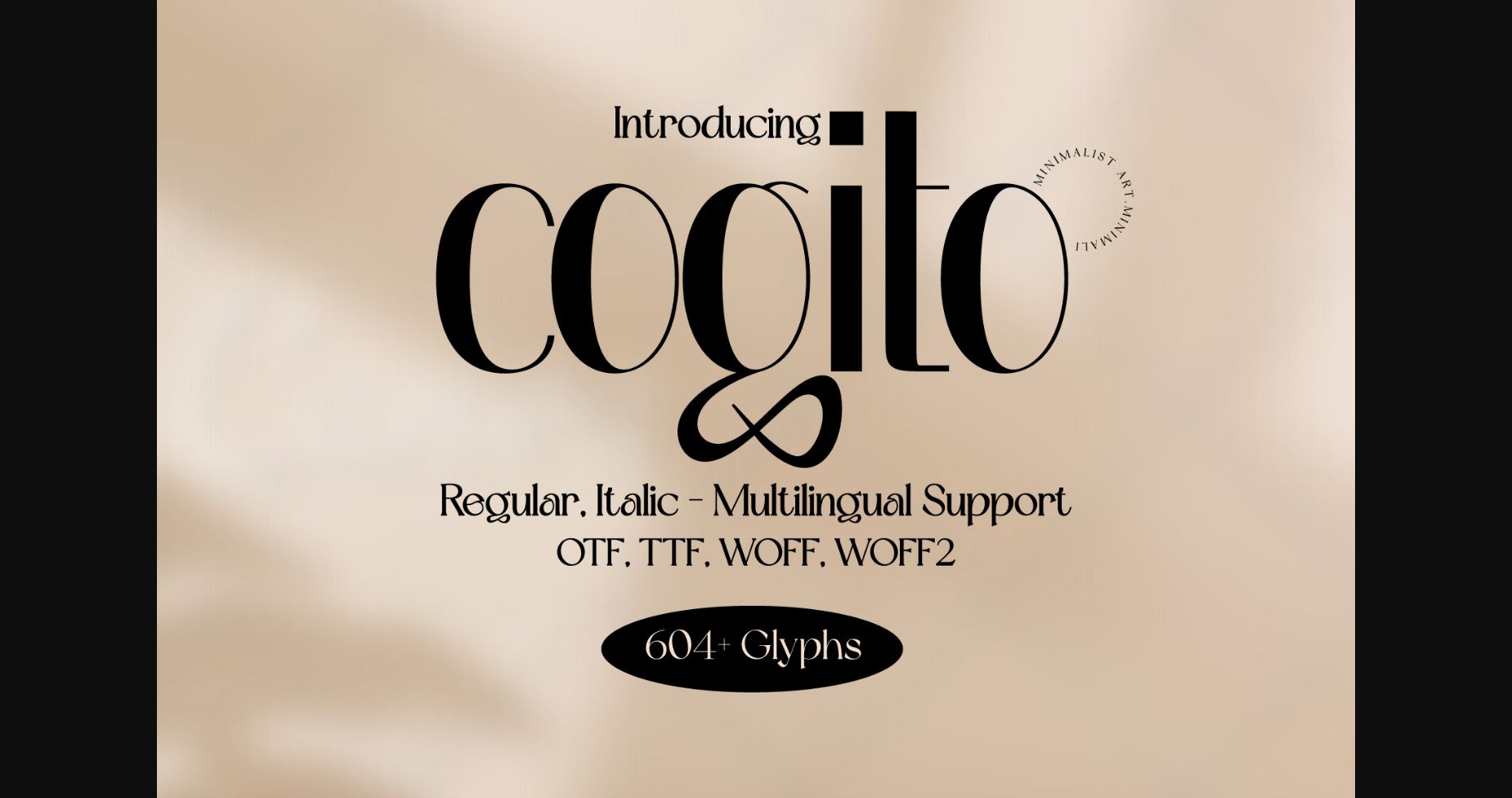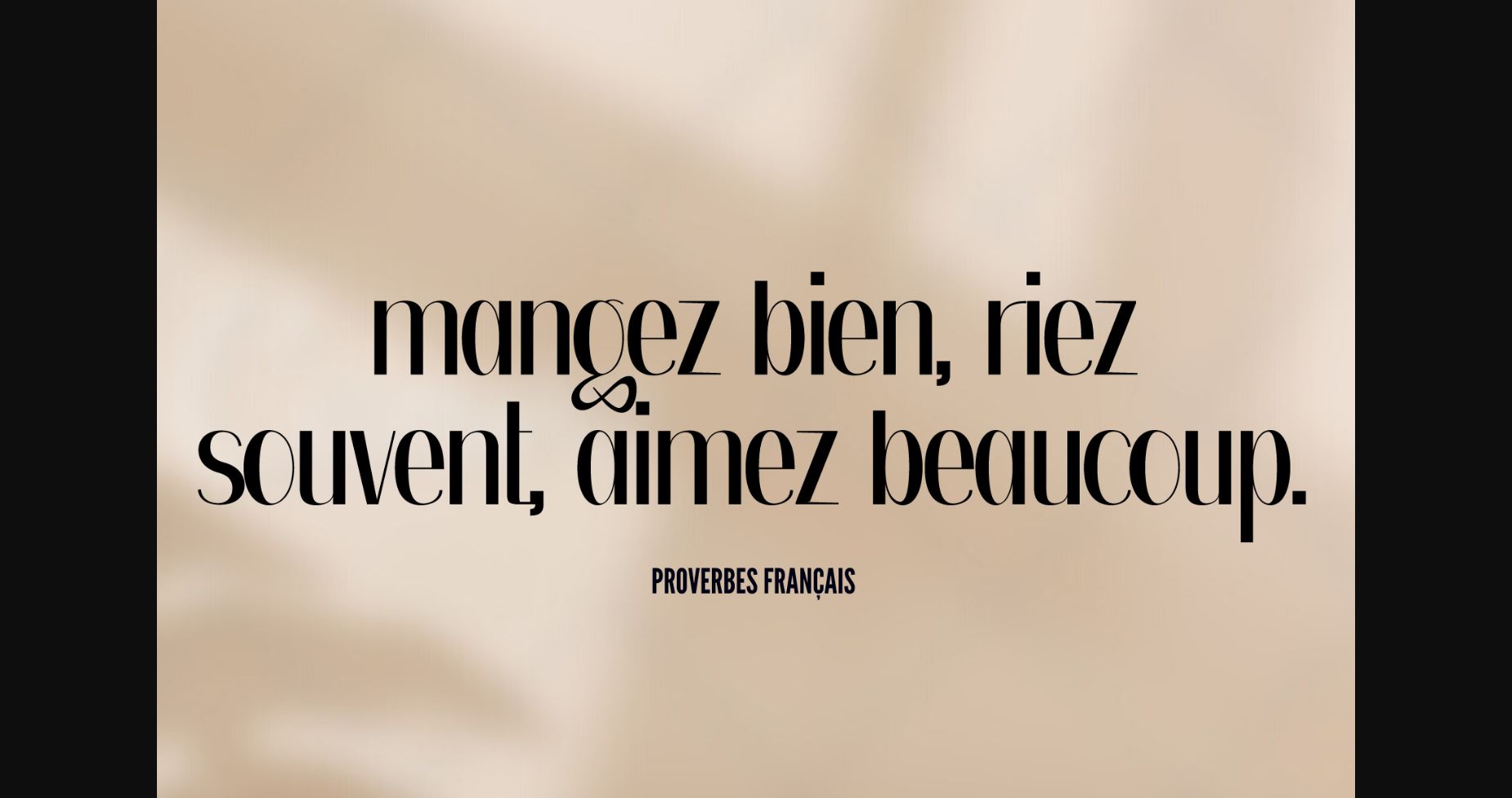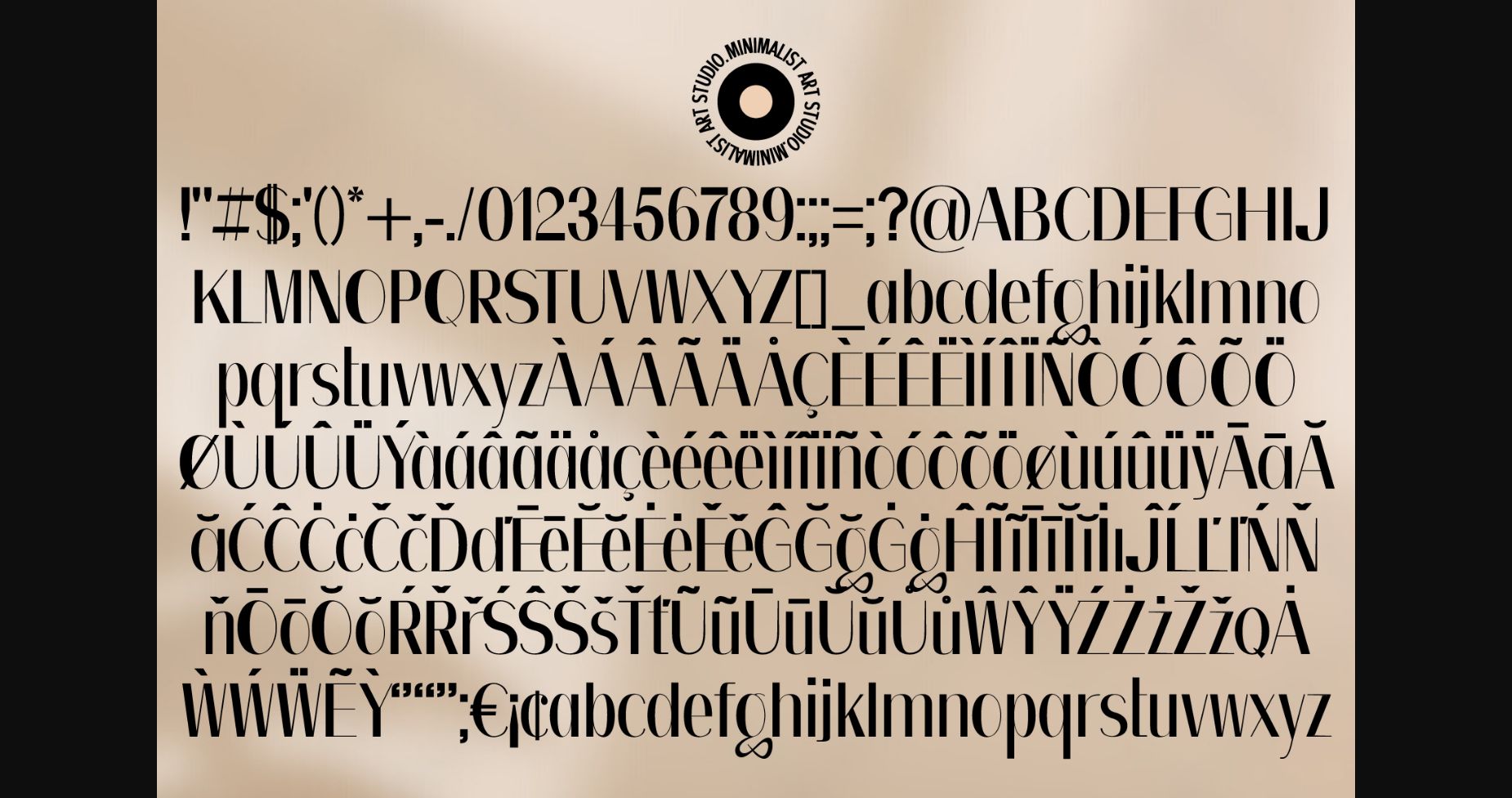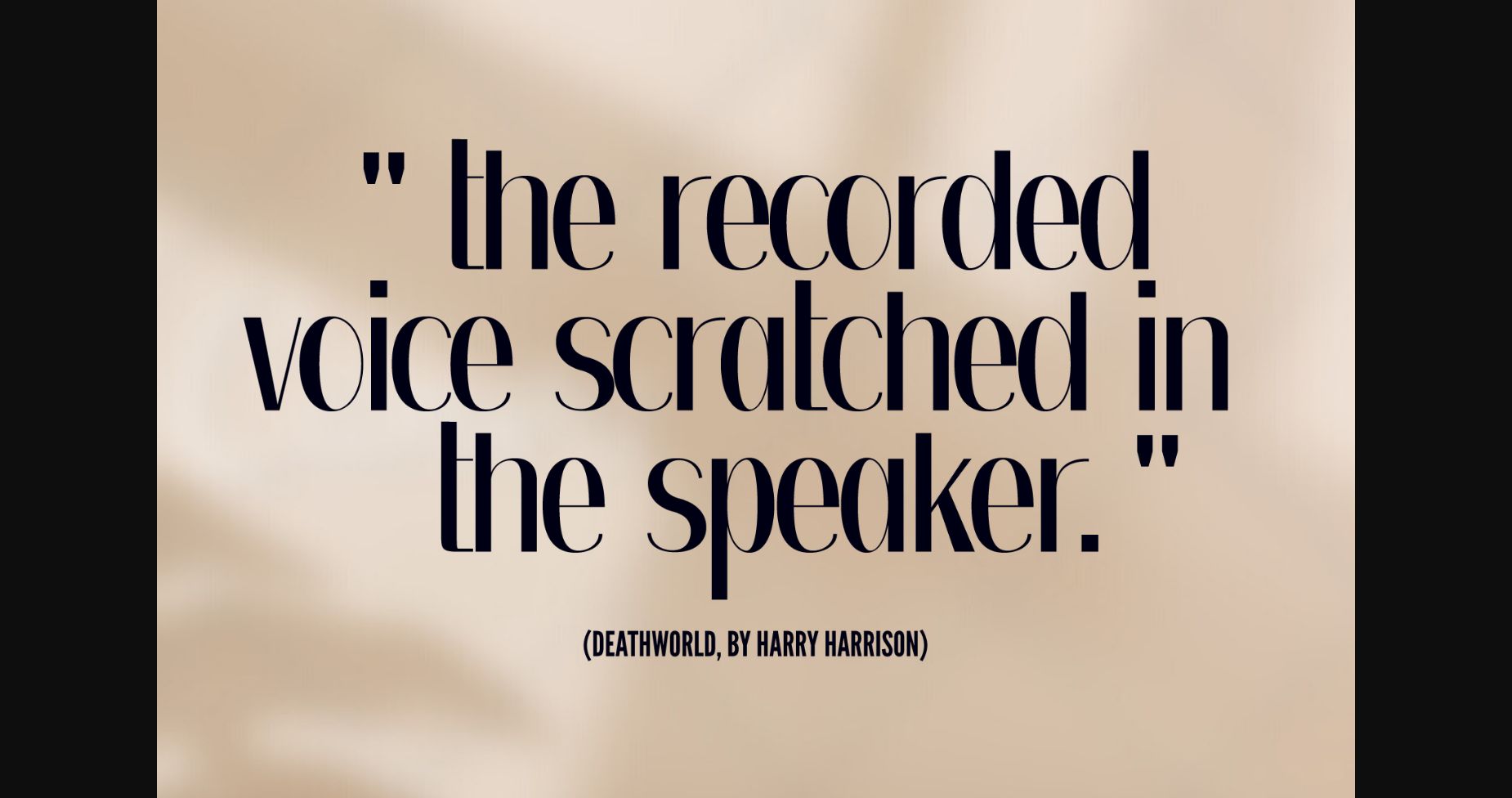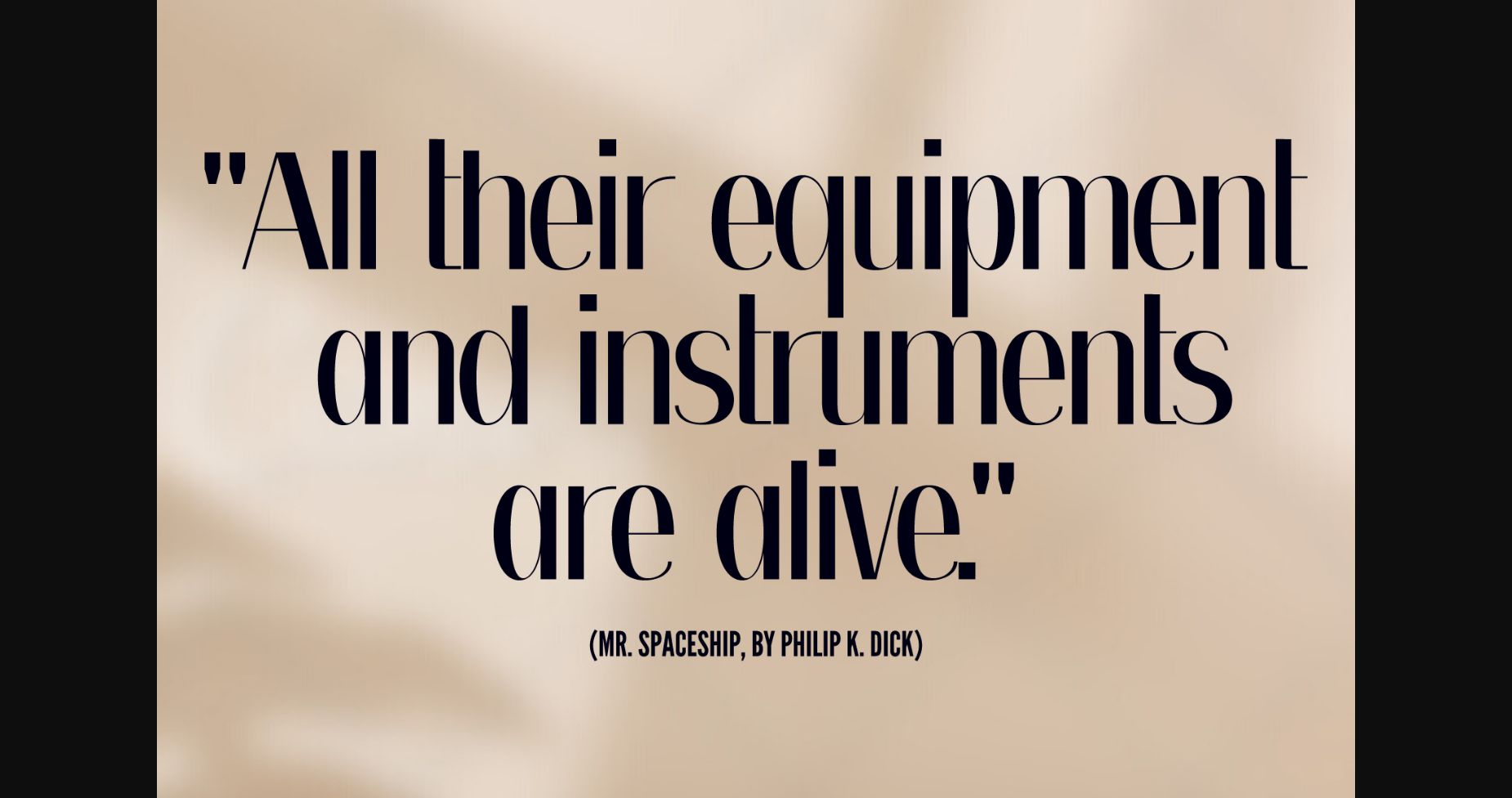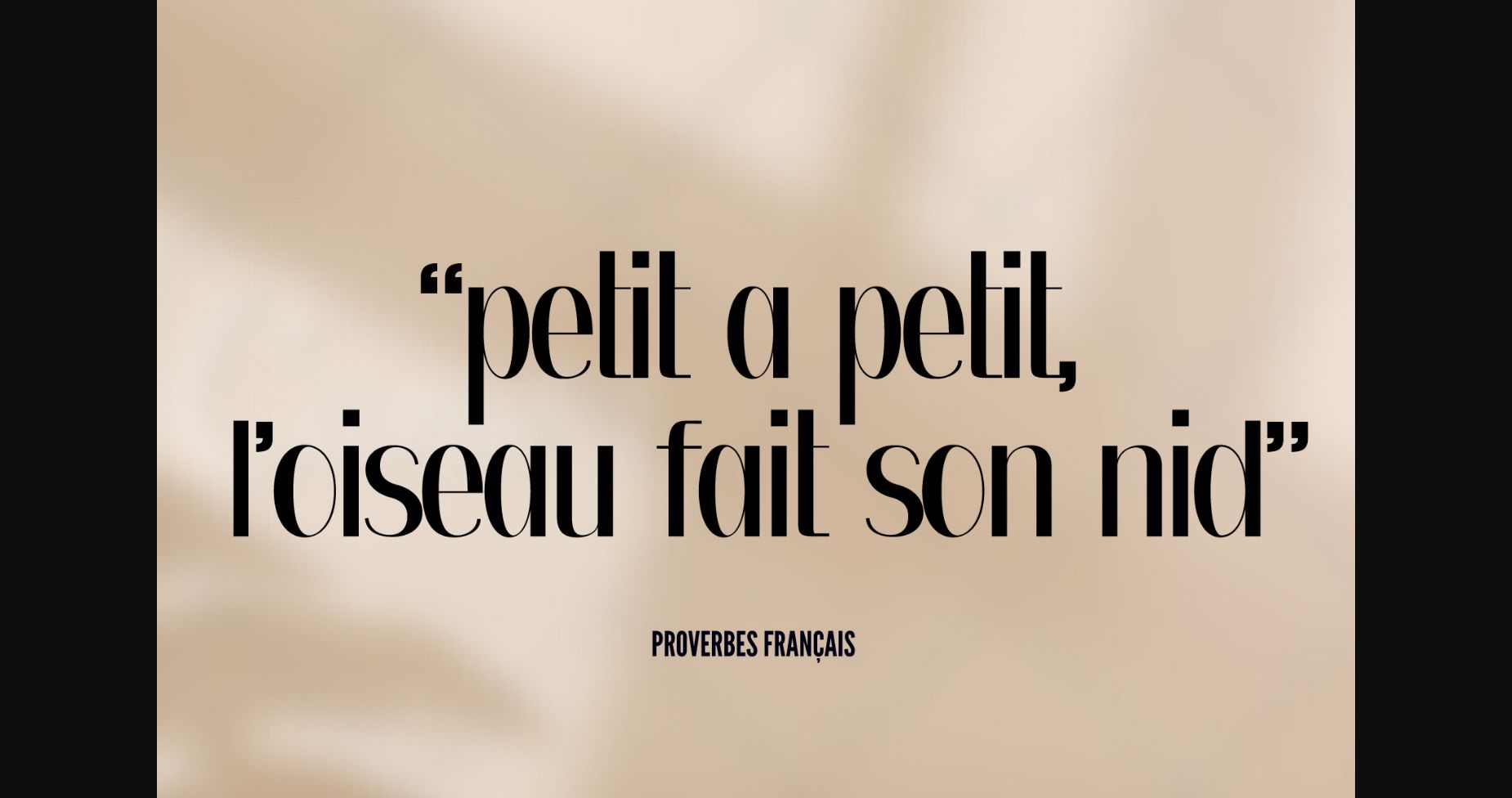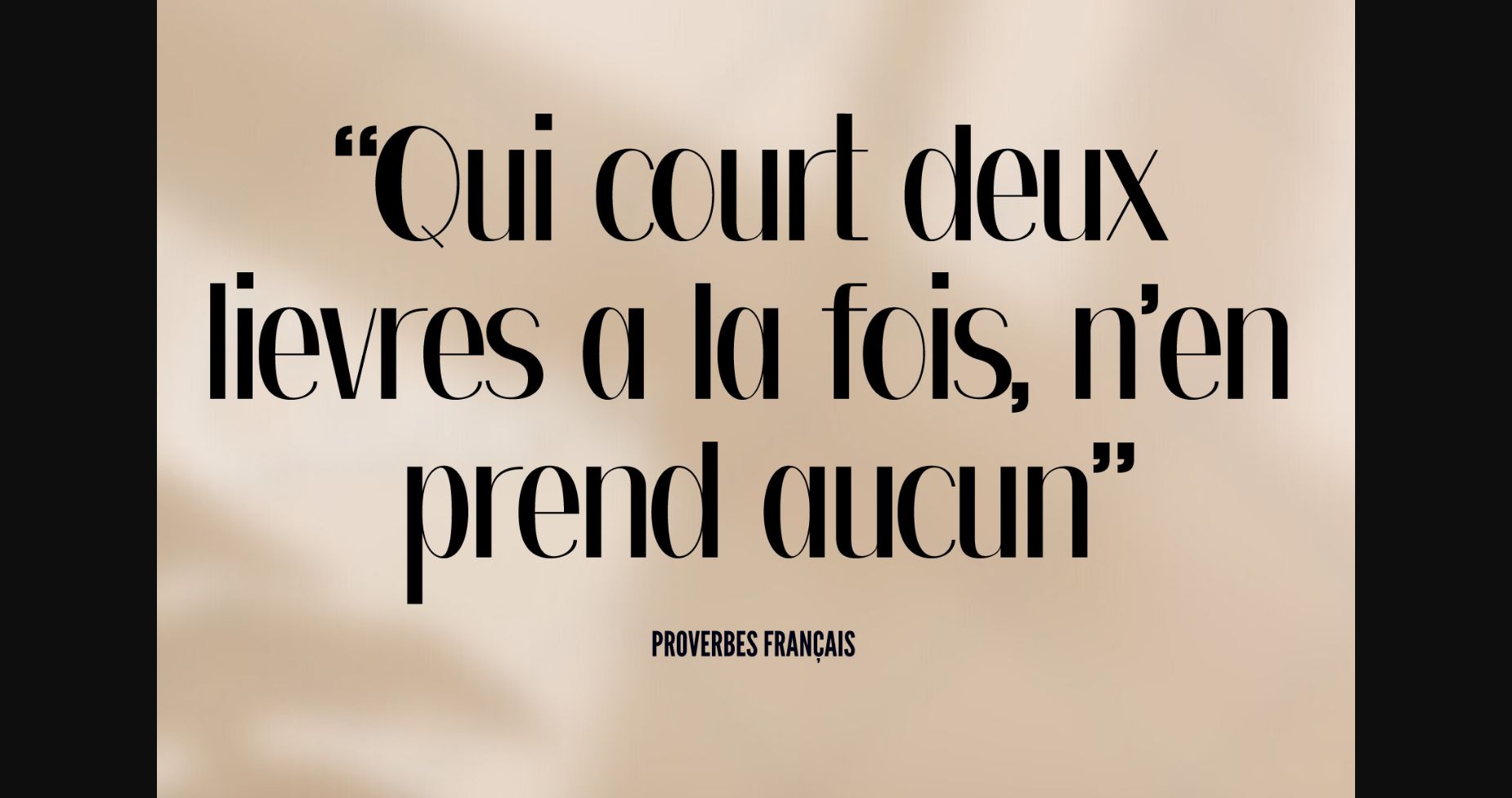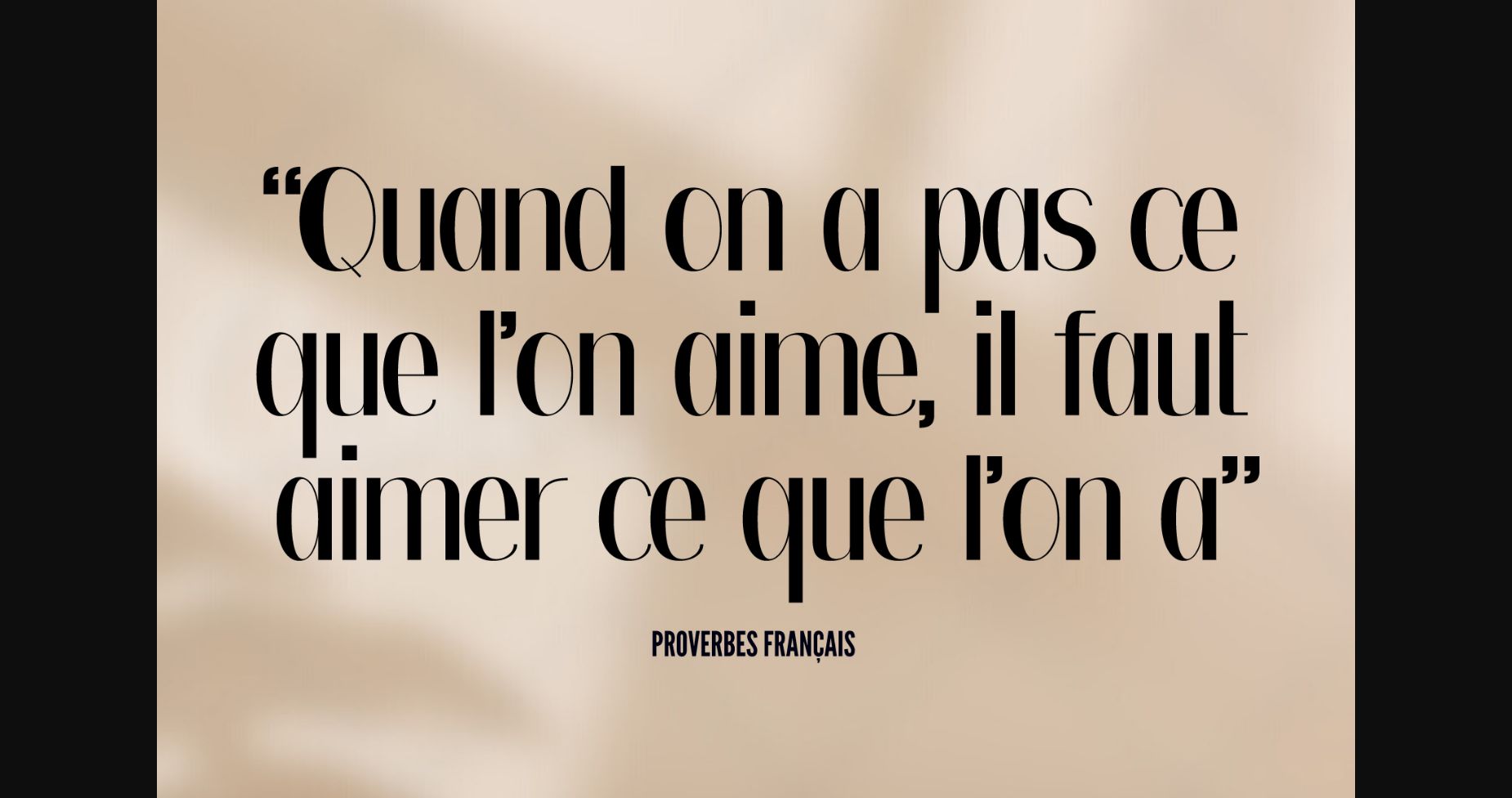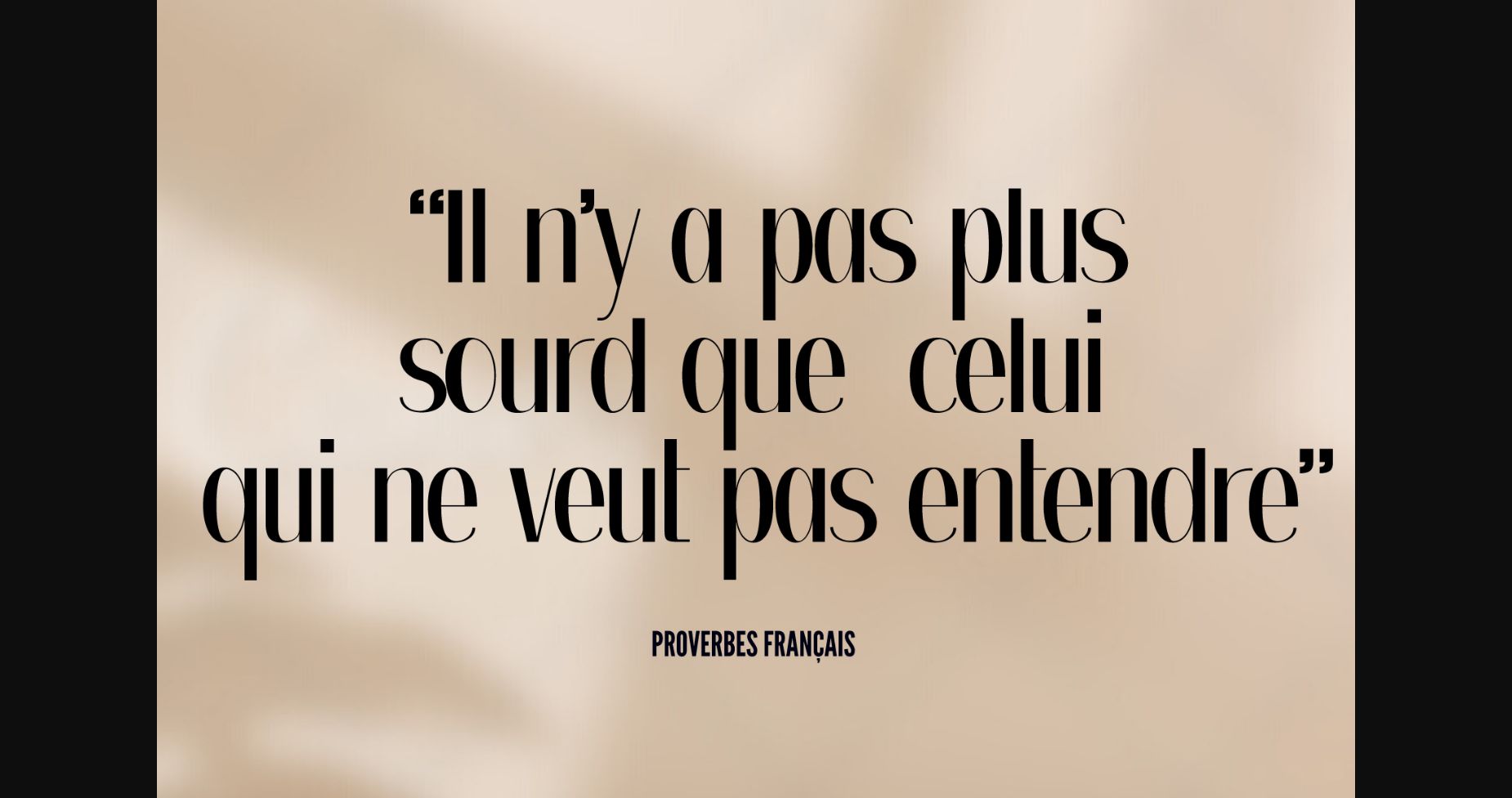
Cogito Font
About Cogito Font
Introducing Cogito, a sleek and stylish sans-serif font that exudes class and elegance. This font offers versatility and diversity in its character set, allowing you to create stunning designs that stand out from the crowd. Whether you’re looking to create a high-end brand identity, a minimalist website design, or simply a chic and sophisticated print piece, Cogito is the perfect choice.
Cogito is also designed to be highly legible, making it a great choice for long-form text, body copy, and even books. With its clear and distinct letterforms, your readers will be able to read your text with ease, even at small font sizes. This makes Cogito a great choice for web and mobile design, where legibility is of utmost importance.